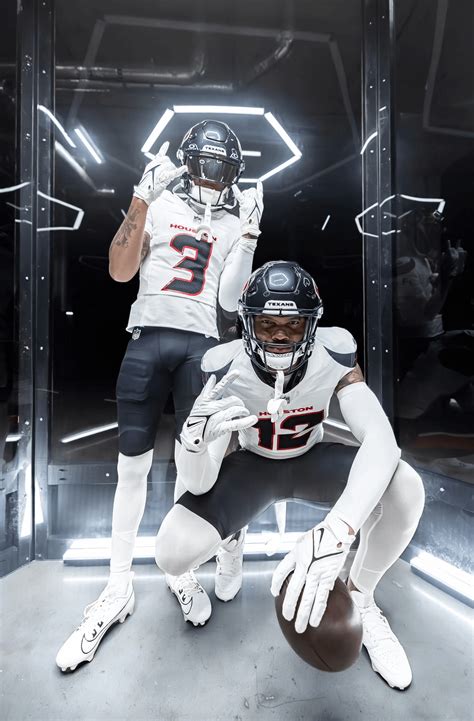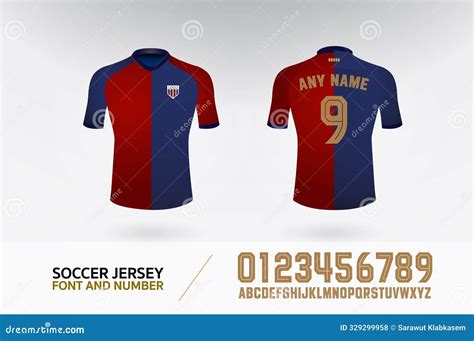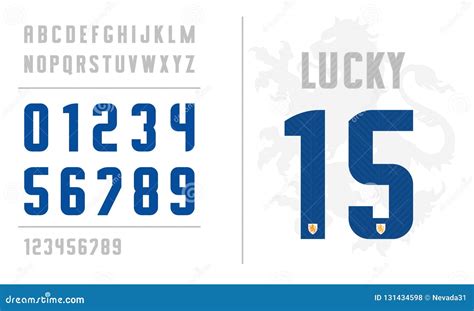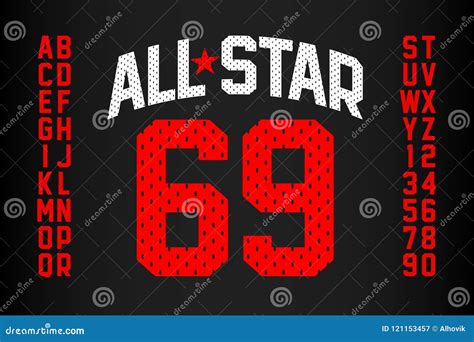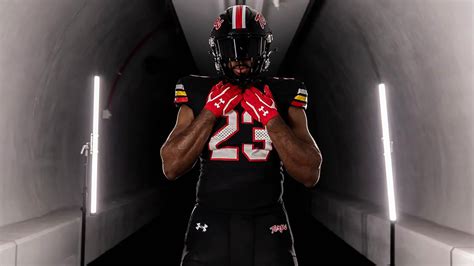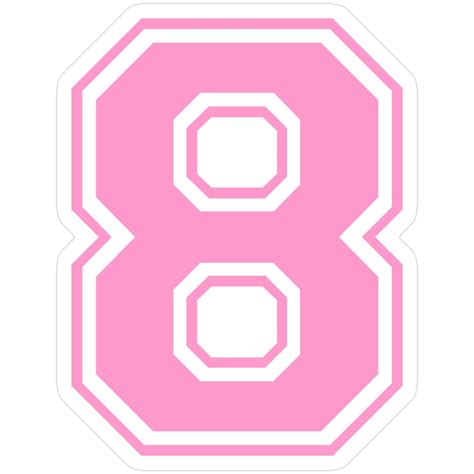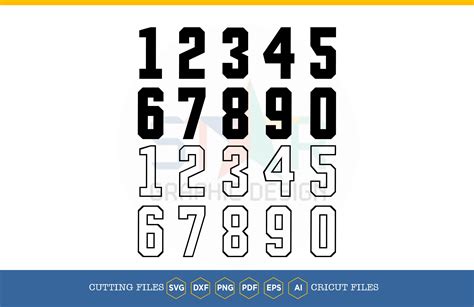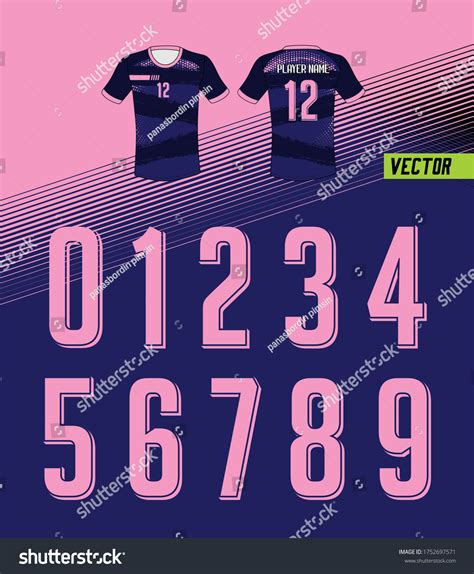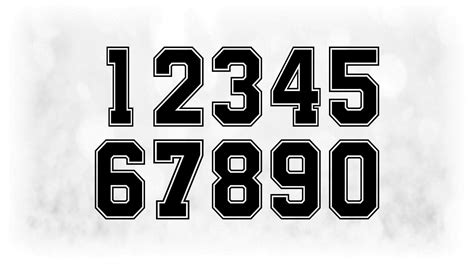
Choosing the perfective font for undifferentiated numbers is more than just an esthetic decision; it is a critical ingredient of team identity, make recognition, and on-field functionality. Whether you are outfitting a professional soccer gild, a eminent school basketball team, or a weekend softball league, the composition habituate on nj communicates a substance before the game even begins. A well-selected font balances legibility from the bleacher with the unique flavour of the governance, ensuring that every actor is well identifiable while conserve a cohesive looking across the entire roll. As design course germinate, the carrefour of sports inheritance and mod vector graphical capability allows for more originative exemption than ever before.
Understanding the Mechanics of Jersey Typography
When select a jersey number baptistery, clarity must always be the priority. Functionary, broadcasters, and fan need to distinguish between similar-looking digits like 3, 5, 8, and 0 in a disunited minute. This is why many professional leagues mandate specific guidelines for throw width, kerning, and stature.
Key Factors in Typeface Selection
- Legibility: The primary requirement for any sports case. High-contrast blueprint that debar overly flowery flourishes are essential for long-distance visibility.
- Proportion: Consistent number must fit within standard jersey spaces, much constrained by patron son, manufacturer marks, or league patches.
- Material Compatibility: Certain intricate fonts are hard to cut for heat-pressed vinyl or screen printing. Thick, blocky styles are loosely easier to produce.
- Brand Alignment: A sleek, italicized font suggests speeding and innovation, while a chunky slab serif conveys custom and posture.
Categorizing Jersey Number Styles
Different sports transport different design expectations. Basketball nj typically favour bold, condensed case that maximise space on a narrow-minded torso, while baseball jersey oftentimes skimpy toward definitive, athletic-inspired block letters with flimsy serif. Below is a breakdown of mutual styles apply in mod manufacturing.
| Style Family | Better Sport Application | Design Characteristic |
|---|---|---|
| College Block | Basketball / Football | Eminent thickness, acute corners, standard height. |
| Slab Serif | Baseball | Includes decorative feet for a vintage look. |
| Modernistic Sans-Serif | Soccer / Motorsports | Clean, geometric, often italicise for motion. |
| Stencil | Combat Sports / Tactical | Broken lines, aggressive esthetic. |
💡 Billet: Always ensure your elect face supports the total set of fibre required for your team, as some conventionalized alphabets lack punctuation or petty exceptional characters.
Design Best Practices for Custom Uniforms
Executing a blueprint effectively demand an understanding of product methods. Whether utilize tackle twill, sublimation, or heat transfer, the font for uniform numbers must be optimise to survive the fabrication procedure and the rigors of gymnastic action.
Balancing Aesthetics and Visibility
Avoid slender line or "hairline" serifs in athletics composition. During heat pressing or heavy wearable, these elements are the first to disrobe or snap. Opt for solid, bluff physique that furnish a eminent surface country for adhesives to bond with the fabric. Furthermore, ensure there is passable demarcation between the number color and the jersey background. If the jersey is dark, use a light-colored number with a contrasting precis or "keyline" to assure the number "pops" against the fabric.
The Role of Kerning and Spacing
In sports designing, "chase" or the space between characters is critical. For numbers, you oftentimes want to manually set the gap to assure that double-digit figure like "11" or "88" aspect balanced. If they are spaced too widely, they seem to swim; too near, and they become a muddy cube of coloration from a length.
The procedure of take the correct design postulate deliberate condition of how the number will execute in the heat of competition. By concentrate on high-contrast, boldface, and structurally sound typography, architect can make optic assets that enhance the professionalism of the team. Consistence in space and color application ascertain that the numbers rest functional and aesthetically delight throughout the season. Ultimately, the better choice is one that equilibrize the requirement of the summercater with the distinct visual identity of the players who bear them, leaving a long-lasting impression through the ability of a well-crafted uniform turn.